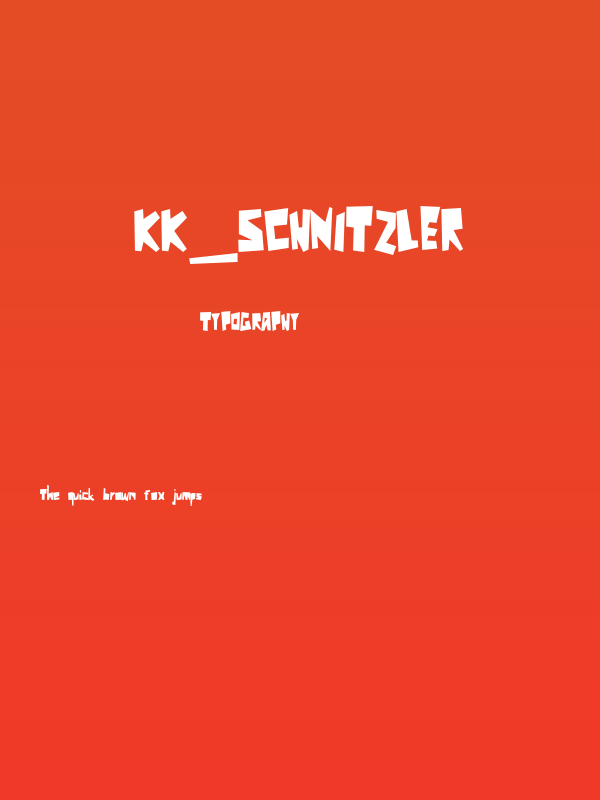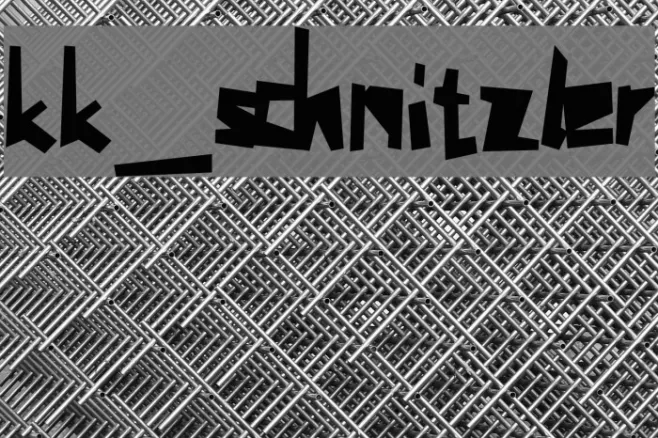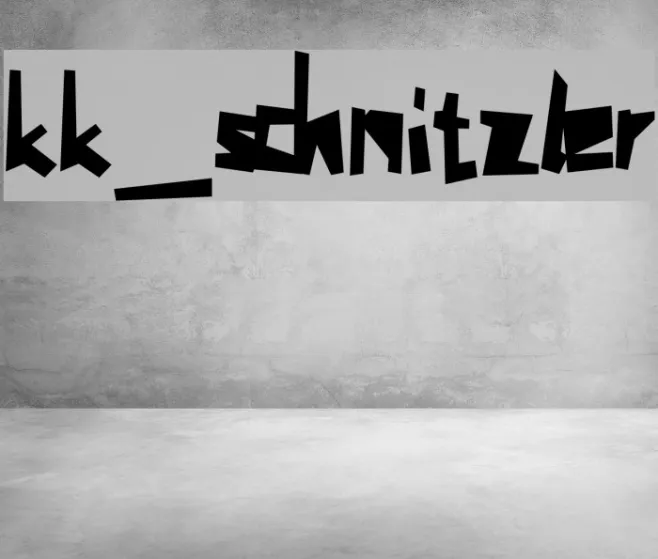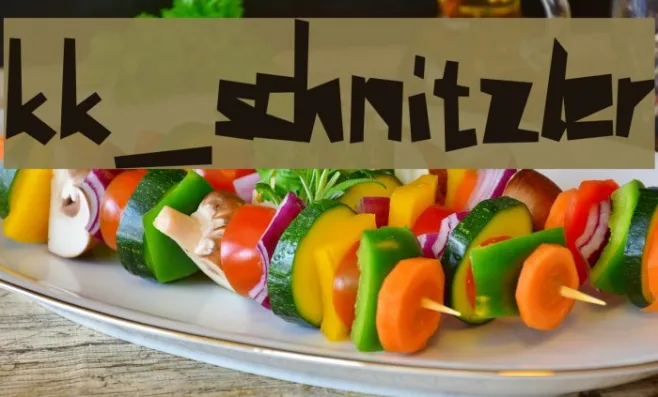
kk_schnitzler Font
kk_schnitzler Description
This font exhibits a bold and playful style with a distinctly geometric and angular design. Each character is crafted with sharp edges and varying widths, creating a dynamic and energetic appearance. The uppercase letters are particularly striking, with a blocky and robust form that commands attention. The lowercase letters maintain the same angular aesthetic, providing a cohesive look across the typeface. Numbers and special characters are designed with the same boldness and geometric flair, ensuring consistency throughout. This font's unique style makes it ideal for projects that require a strong visual impact.